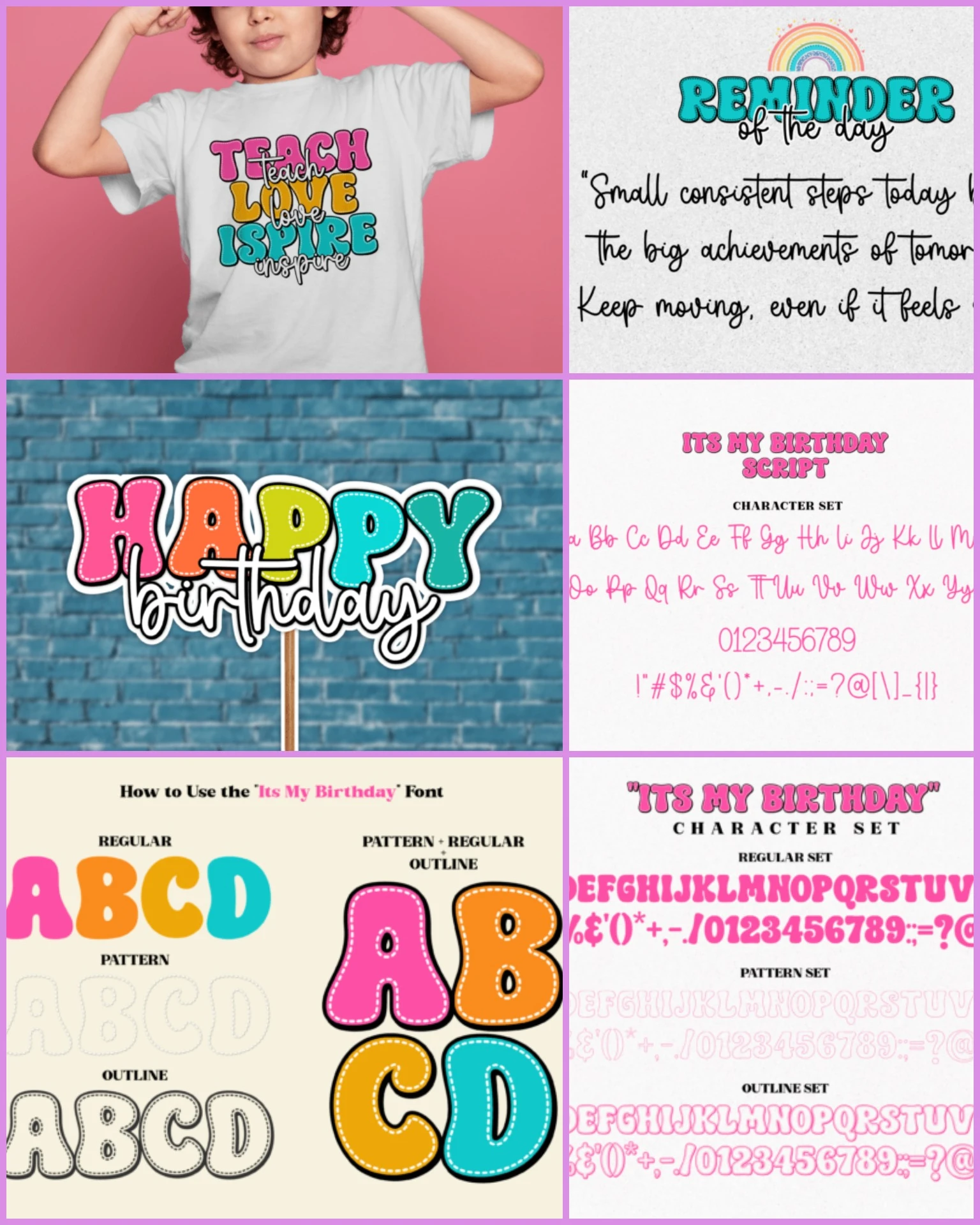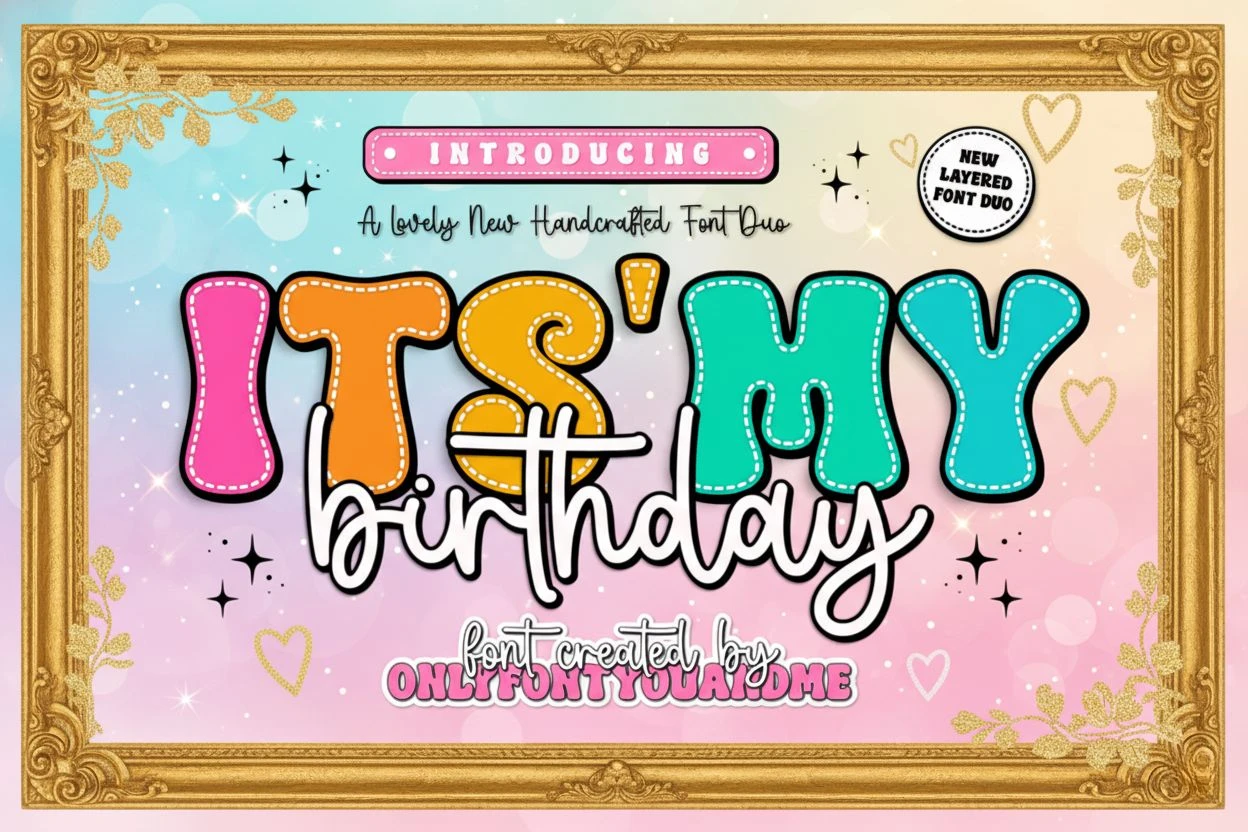
Celebrate every occasion with It’s My Birthday Font, a vibrant layered font duo that combines a bold, bubbly display style with a friendly handwritten script. Designed for cheerful and eye-catching designs, this font includes three variations — pattern, regular fill, and outline, allowing you to mix and match for endless creative results.
Perfect for party invitations, greeting cards, posters, kids’ projects, Cricut and Silhouette crafts, or any festive design, this font captures the spirit of joy and celebration. The handwritten layer adds a personal, casual touch that pairs beautifully with the bold display letters.
Fully PUA encoded and compatible with all design software, It’s My Birthday Font makes it easy to create colorful, layered text with a professional look. Add fun, warmth, and playfulness to your next project with this must-have handcrafted font duo.